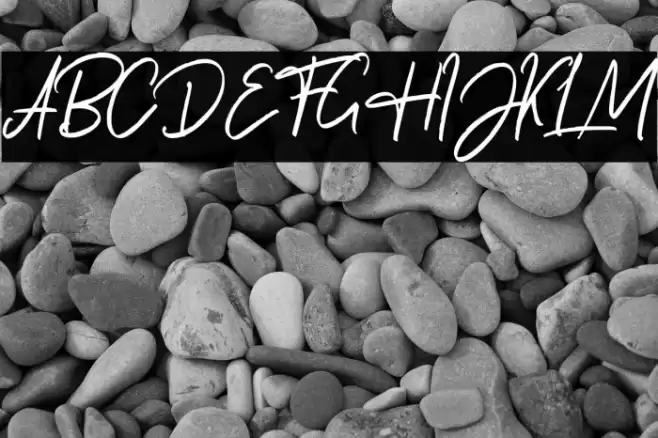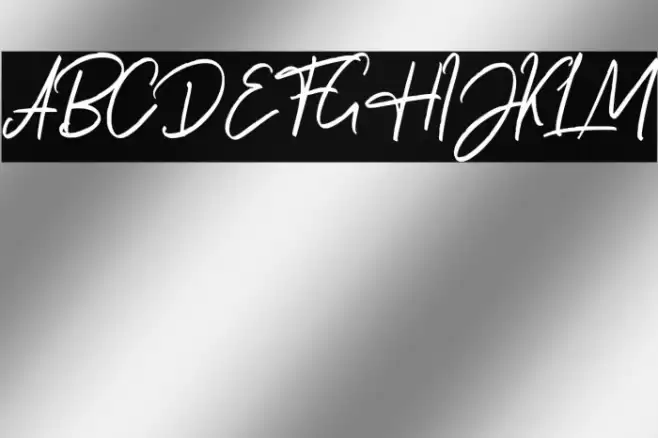
The Rich Jullietta DEMO Font
The Rich Jullietta DEMO Description
This font features a dynamic and flowing script style that exudes elegance and sophistication. The uppercase letters are tall and slender, with graceful curves and loops that give them a sense of movement. The lowercase letters maintain a consistent style, with smooth connections and a slightly more compact form. The overall appearance is reminiscent of elegant handwriting, making it suitable for projects that require a personal touch. The font's fluidity and artistic flair make it ideal for creative designs, invitations, and branding materials. Its unique character is enhanced by the subtle variations in stroke thickness, adding depth and interest to the text.
A dynamic and elegant script font with flowing, handwritten style from Uncategorized fonts.
- Font: The Rich Jullietta DEMO
- Proposed Projects: Ideal for wedding invitations, branding, logos, and artistic designs.
- Overall Style: Elegant, Artistic
- Use Case: Logos, Invitations, Branding